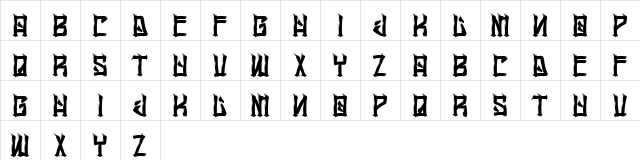
H74 Chingon Regular
| Designer | Joshua Smith |
Design Context for H74 Chingon Typeface
H74 Chingon is a composed and adaptable typeface that performs quietly and consistently across a wide range of design contexts.